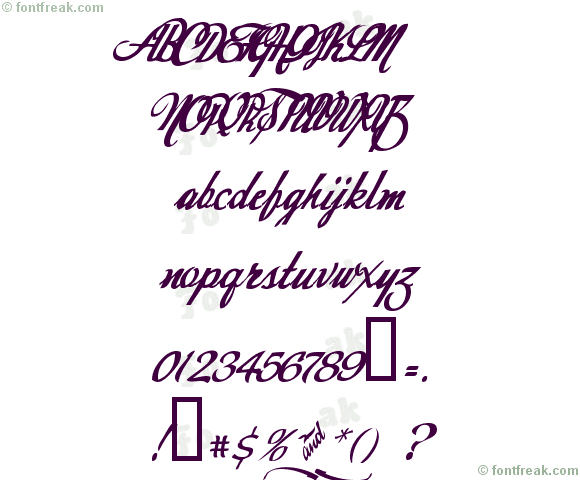
Today
The "Today" font, crafted by Clement Nicolle and released in 2008, is a striking script typeface that embodies elegance and modernity. This font exudes a sense of fluidity with its graceful curves and distinct stroke variations. The design features a medium stroke weight complemented by subtle contrasts, creating a visually appealing balance that is both sophisticated and approachable. The spacing is generous, allowing each letter to breathe, which enhances readability while maintaining a stylish flair.
Ideal for a variety of creative projects, the "Today" font is perfect for wedding invitations, adding a romantic touch to any celebration. Its charm also makes it suitable for restaurant menus, where it can elevate the dining experience with a hint of sophistication. Additionally, this font shines in branding efforts, such as logo designs, where it can convey a sense of personality and warmth. Graphic designers and small business owners will find this font particularly appealing for creating engaging social media posts and promotional material, ensuring that their content stands out in a crowded digital landscape.
What truly sets the "Today" font apart is its ability to convey emotion while remaining functional. Whether you're crafting a heartfelt wedding invitation or a chic branding project, this font's sophisticated yet friendly character ensures that your message is communicated with style and grace. Embrace the beauty of the "Today" font and elevate your design work today.